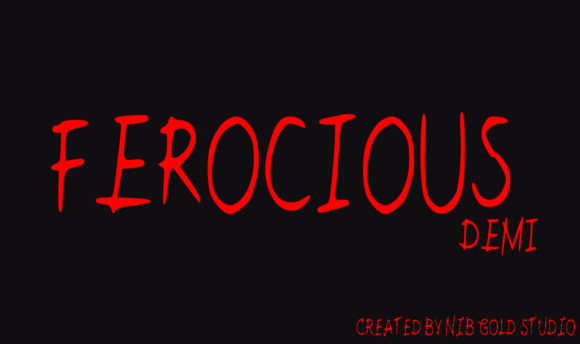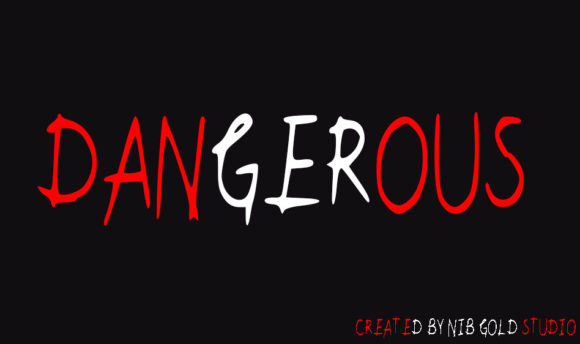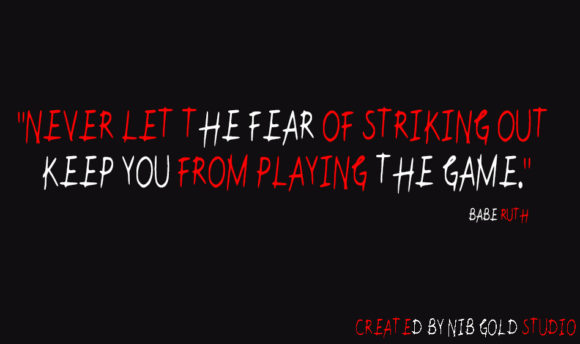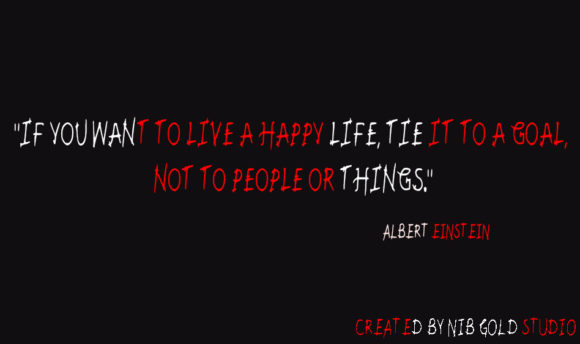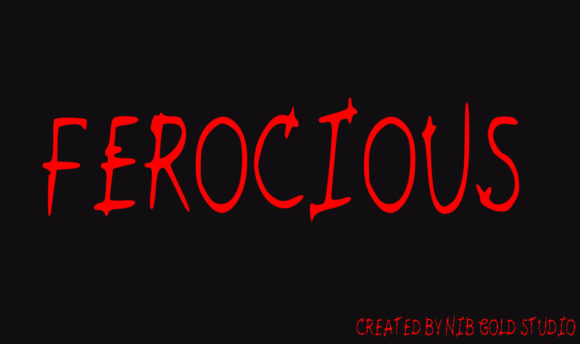
Unleash the Terror: Introducing Ferocious Font, the Ultimate Horror Display Font
Are you ready to add a touch of horror to your designs? Look no further than Ferocious Font, a clean and terrifying display font that’s perfect for all your Halloween-related projects. Whether you’re a designer, crafter, or simply a fan of the spooky season, Ferocious Font is sure to send chills down your spine.
What is Ferocious Font?
Ferocious Font is a unique and eye-catching display font that’s specifically designed to evoke the spirit of horror and Halloween. With its clean lines and bold typography, Ferocious Font is the perfect addition to any design that requires a touch of terror. From blog posts and logos to branding and ads, Ferocious Font is sure to make your designs stand out from the crowd.
What Can I Use Ferocious Font For?
The possibilities are endless with Ferocious Font! This versatile font can be used for a wide range of Halloween-related projects, including:
- Blog Posts: Add a touch of horror to your Halloween-themed blog posts and make them stand out from the crowd.
- Logos and Branding: Create a spooky and memorable logo for your Halloween-themed business or event.
- Ads and Invitations: Make your Halloween ads and invitations pop with Ferocious Font.
- Greeting Cards: Create spooky and fun greeting cards for Halloween and other occasions.
- Planners and Photo Albums: Add a touch of horror to your planners and photo albums and make them truly unique.
- Decorations: Use Ferocious Font to create spooky decorations for your home or office.
Why Choose Ferocious Font?
So why choose Ferocious Font over other display fonts? Here are just a few reasons:
- Unique and Eye-Catching: Ferocious Font is a one-of-a-kind font that’s sure to grab attention and send chills down your spine.
- Clean and Legible: Despite its horror theme, Ferocious Font is surprisingly clean and legible, making it perfect for use in a wide range of designs.
- Versatile: Ferocious Font can be used for a wide range of projects, from digital designs to print materials.
Tips for Using Ferocious Font
Here are a few tips for getting the most out of Ferocious Font:
- Use it Sparingly: Ferocious Font is a bold and attention-grabbing font, so use it sparingly to avoid overwhelming your design.
- Pair it with Other Fonts: Pair Ferocious Font with other fonts to create a unique and interesting contrast.
In conclusion, Ferocious Font is a unique and terrifying display font that’s perfect for all your Halloween-related projects. With its clean lines, bold typography, and versatility, Ferocious Font is sure to make your designs stand out from the crowd. So why wait? Download Ferocious Font today and unleash the terror in your designs!